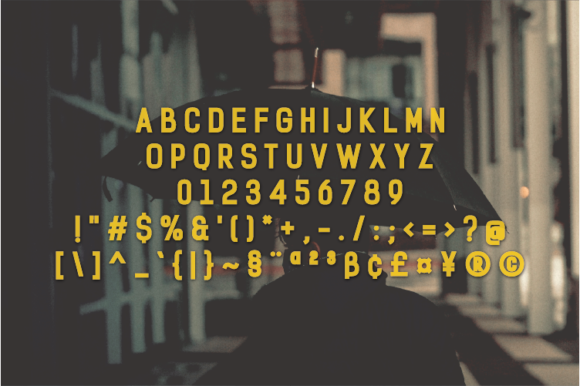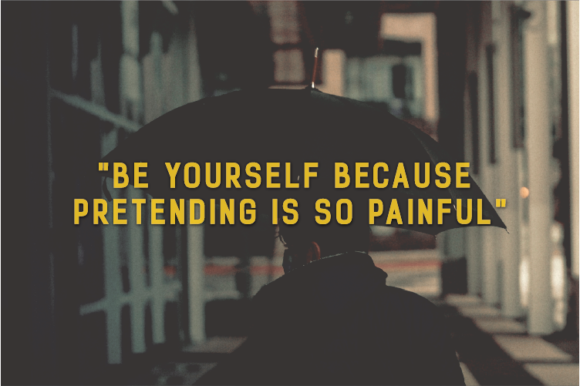
The Perfect Match for Your Creative Ideas
Have you ever been stuck in front of a blank page, staring at your computer screen, trying to find the perfect font to bring your design to life? It’s a frustrating feeling, but one that we’ve all been there at some point or another.
That’s where the Botfon Font comes in – a minimal and neat sans serif font that’s designed to add a touch of elegance to your projects. Whether you’re working on a logo, a brochure, or a website, Botfon Font is the perfect match. Its versatility makes it easy to pair with a wide range of colors and designs, making it a valuable asset for designers.
By incorporating the Botfon Font into your creative ideas, you’ll be able to take your designs to the next level and make them stand out in a crowded market.
Botfon Font Key Features
- Font Size: The font family includes multiple weights, ranging from Thin (100) to Black (900), providing flexibility for various design applications.
- Unique Characteristics: The font features a distinctive, modern design with geometric shapes and clean lines, making it ideal for digital and print materials.
- Kerning and Ligatures: The font includes advanced kerning and ligature pairs, ensuring seamless integration of letters and improving overall typographic quality.
Botfon Font Review
Overall, I think the Botfon Font has some nice qualities that make it worth considering, but it’s not without its flaws. ✨ One thing that stands out is its versatility – it can be used for a wide range of projects, from logos and branding to body text and display fonts. It also has a clean, modern aesthetic that’s perfect for digital design.
Another thing that works well is the font’s legibility. ✨ It’s easy to read, even at smaller sizes, which is essential for digital design where text is often displayed on small screens. Additionally, the font has a nice balance of simplicity and sophistication, making it suitable for both personal and professional projects.
- ⚠️ The font may not be suitable for projects that require a high degree of creativity or experimentation, as it’s a fairly safe and conservative choice.
- ⚠️ The font’s weight and style options are somewhat limited, which may make it difficult to achieve the exact look you want.
- ⚠️ Some users may find the font’s lines and curves a bit too geometric or angular, which can be a drawback for those who prefer more organic or cursive fonts.
While the Botfon Font has some limitations, it’s still a solid choice for designers who value simplicity, legibility, and versatility. With its clean aesthetic and wide range of applications, it’s definitely worth considering for your next design project.
Botfon Font: A Practical Application Guide
Botfon Font is ideal for creating modern and minimalist designs. Use it for:
- Logo designs and branding materials.
- Business cards and letterheads.
- Web design and UI/UX elements.
- Infographics and data visualizations.
Remember to always use the font consistently throughout your design to create a cohesive look and feel.
Alternatives to Botfon Font
Open Sans is a modern sans-serif font designed for digital interfaces. It’s highly legible, clean, and versatile, making it suitable for a wide range of applications, from body text to headings.
Comparison to Botfon Font: Open Sans has a more neutral tone and is often used in corporate and digital designs. It’s a great choice for projects where a clean and professional look is desired.